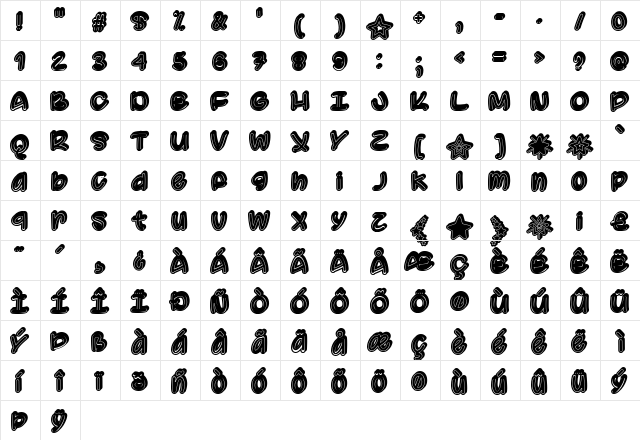
Supermassive Black Hole Regular
Design Context for Supermassive Black Hole Typeface
Supermassive Black Hole is a composed and adaptable typeface that performs quietly and consistently across a wide range of design contexts.